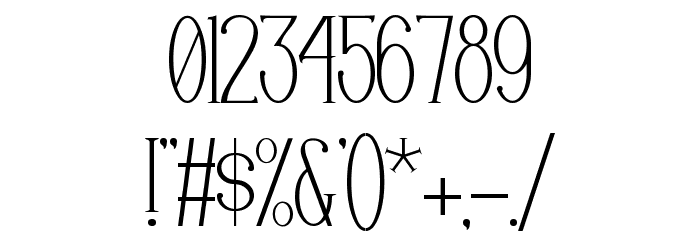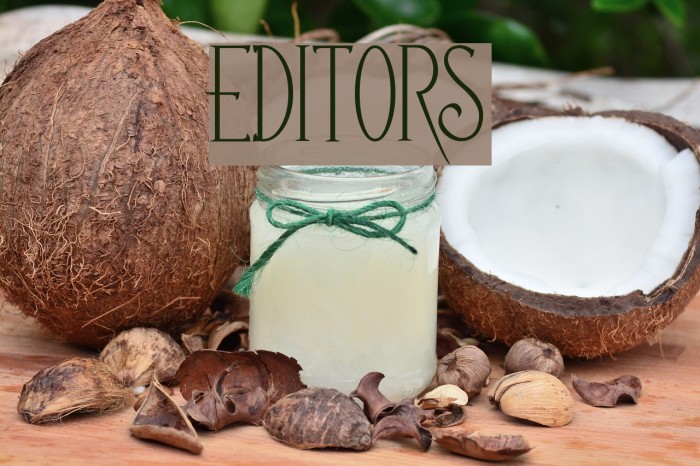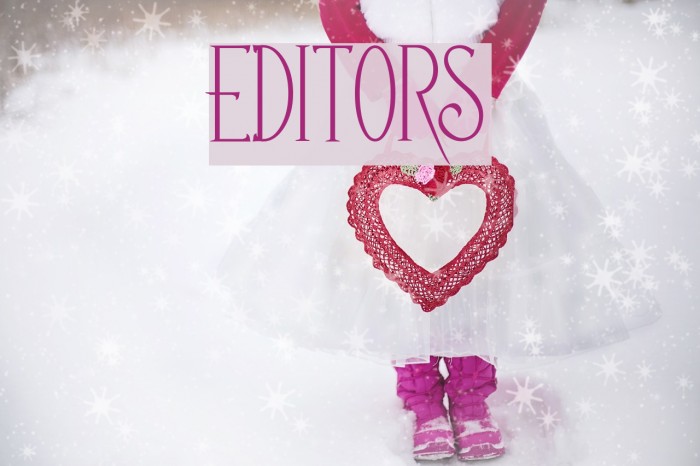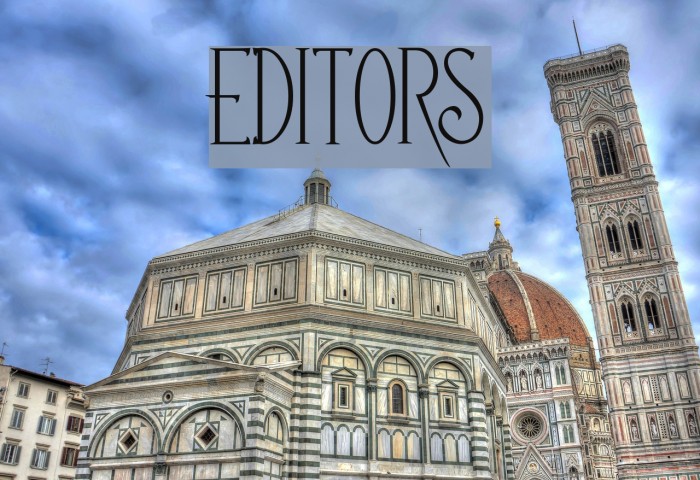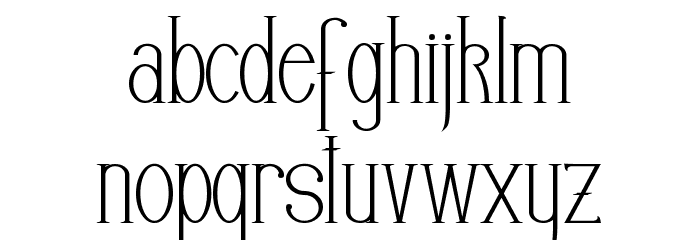
EDITORS Font
EDITORS Description
This font features a distinctive and elegant design with elongated, narrow letterforms that convey a sense of sophistication and style. The uppercase letters are tall and slender, with subtle curves and sharp angles that add a touch of modernity. The lowercase letters maintain the same narrow structure, providing a cohesive look across the typeface. Numbers and special characters are designed to match the overall aesthetic, ensuring consistency throughout. The font's unique style makes it suitable for creative and artistic projects where a touch of elegance is desired.
An elegant, narrow font with elongated letterforms and a modern touch from Uncategorized fonts.
- Proposed Projects: Ideal for fashion magazines, luxury branding, wedding invitations, and artistic posters.